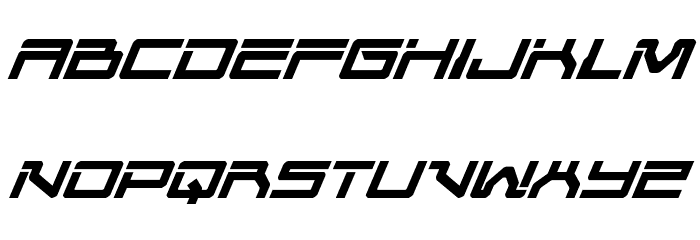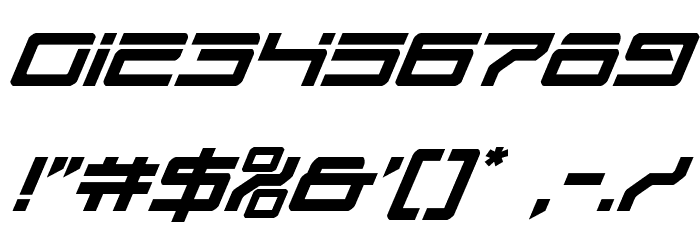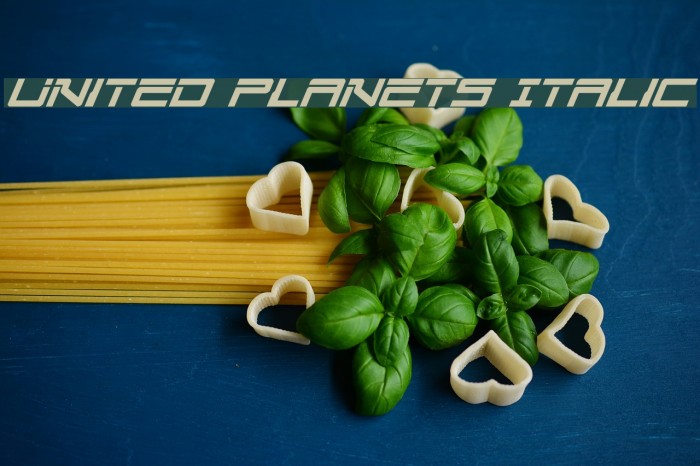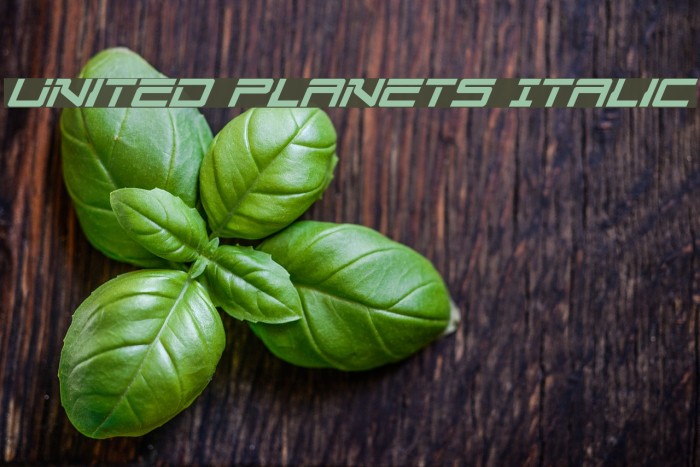
United Planets Italic Font
This font features a futuristic and angular design, characterized by its sharp edges and italicized slant. The letters are bold and have a distinct geometric style, making them stand out with a modern, tech-inspired aesthetic. The uppercase and lowercase letters maintain a consistent style, with a uniform slant that adds a sense of motion and speed. The numbers and special characters follow the same design principles, ensuring a cohesive look across all glyphs. The font's unique appearance makes it suitable for projects that require a contemporary and dynamic feel.
A futuristic, italicized font with bold, angular letters and a tech-inspired design.
- Proposed Projects: Ideal for sci-fi themed projects, technology branding, video game titles, and modern advertising campaigns.